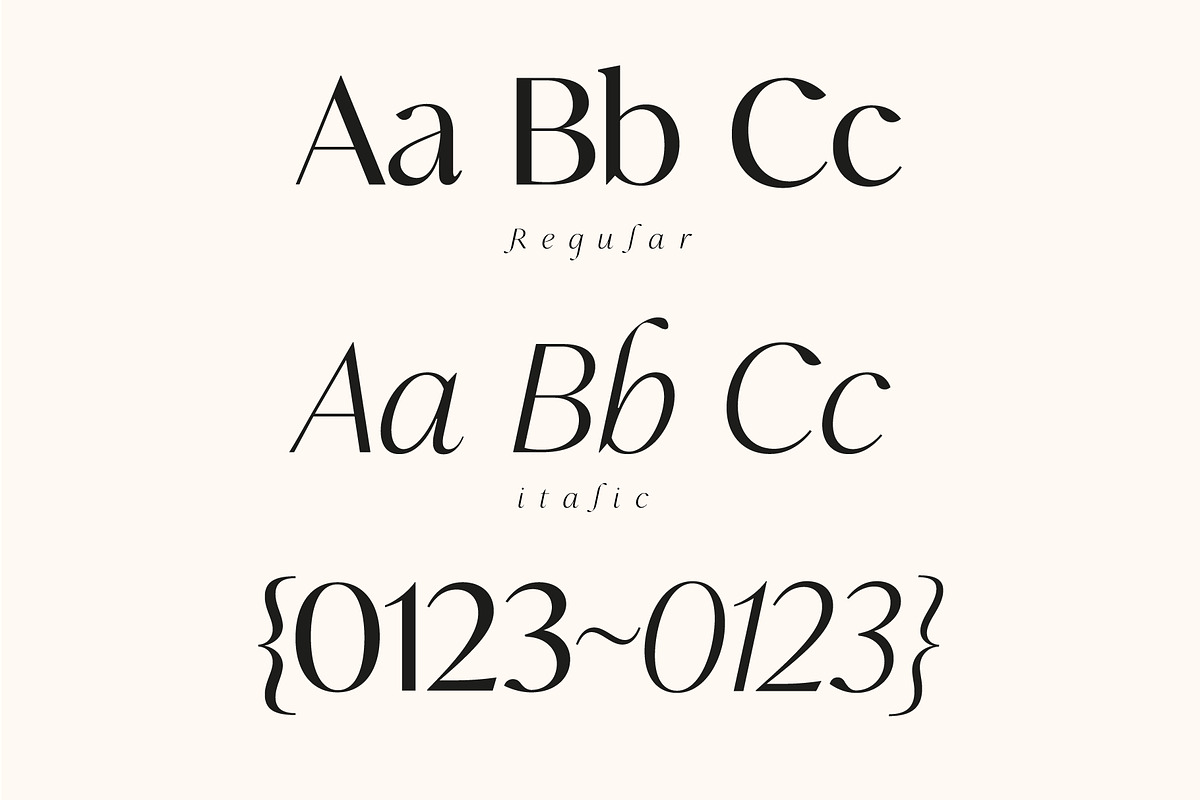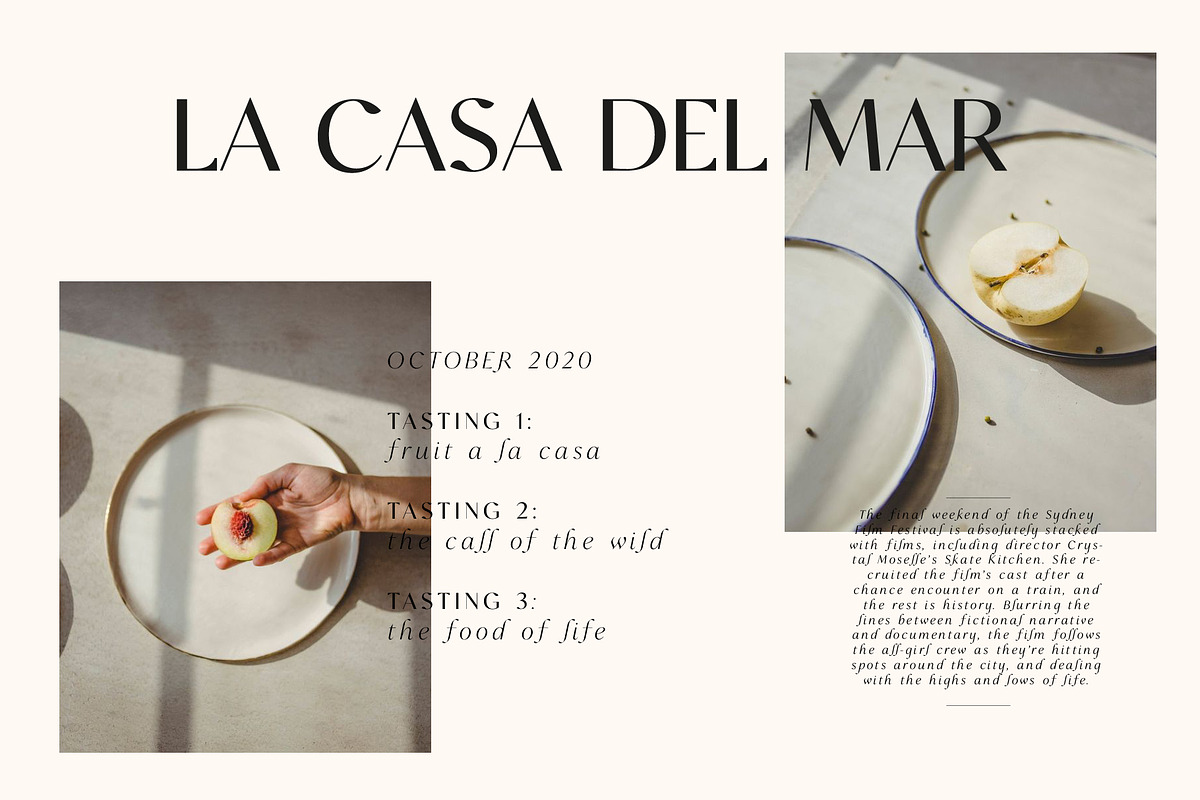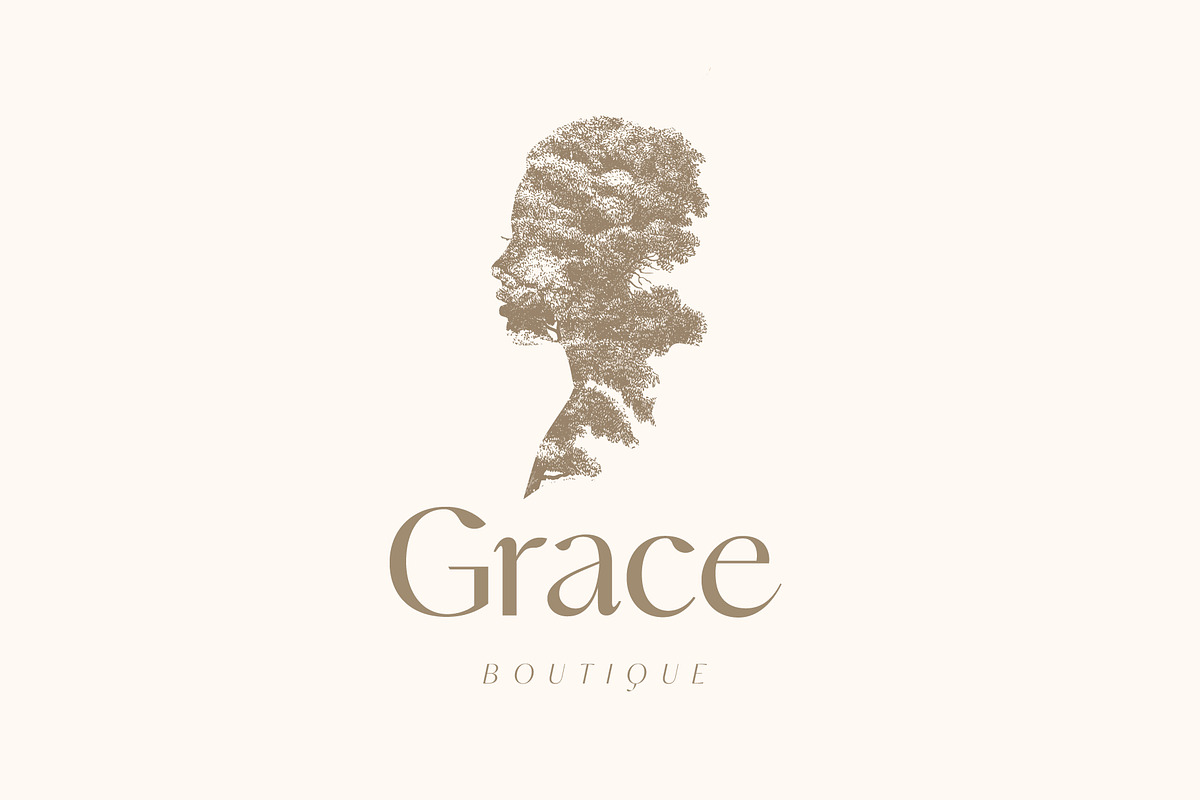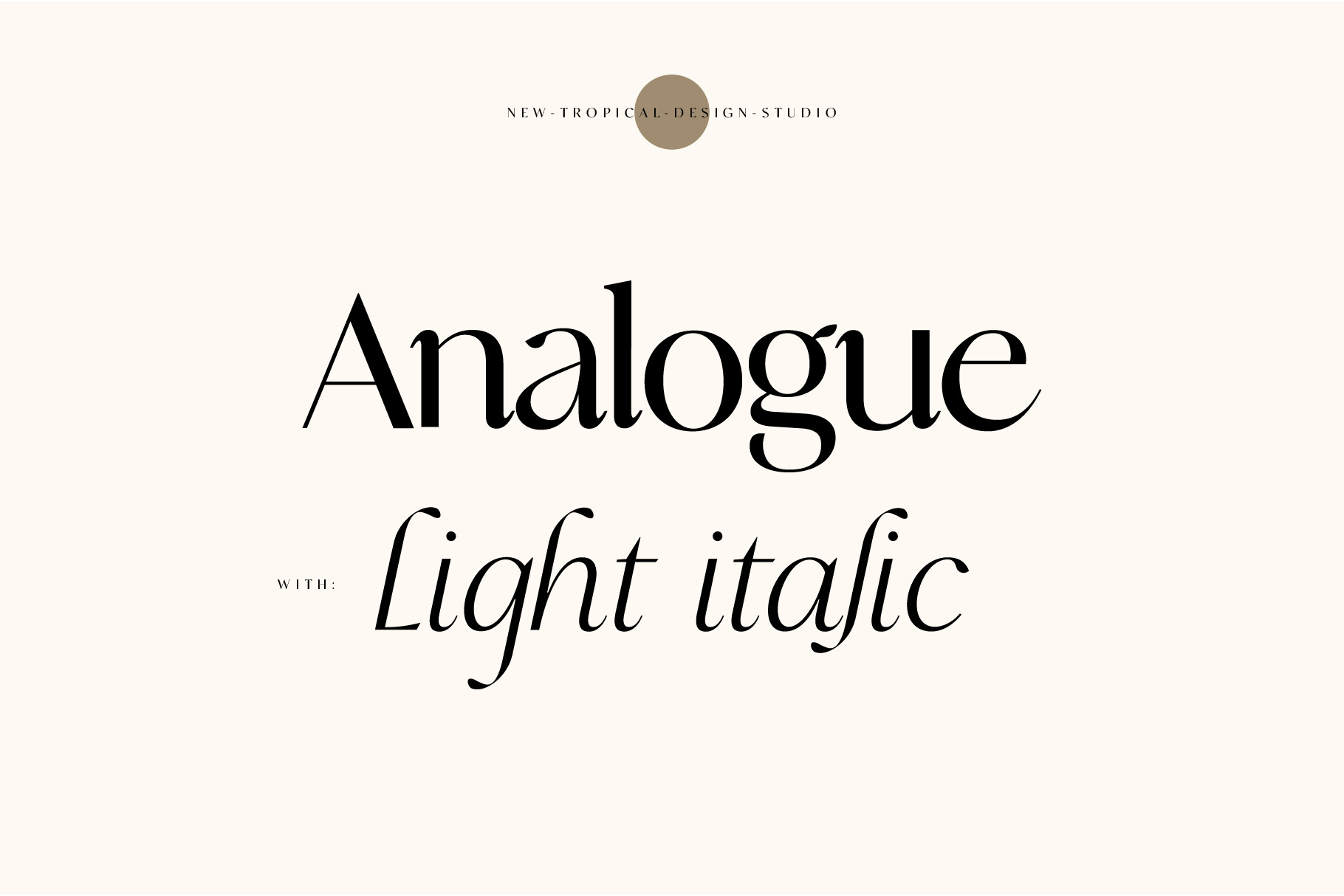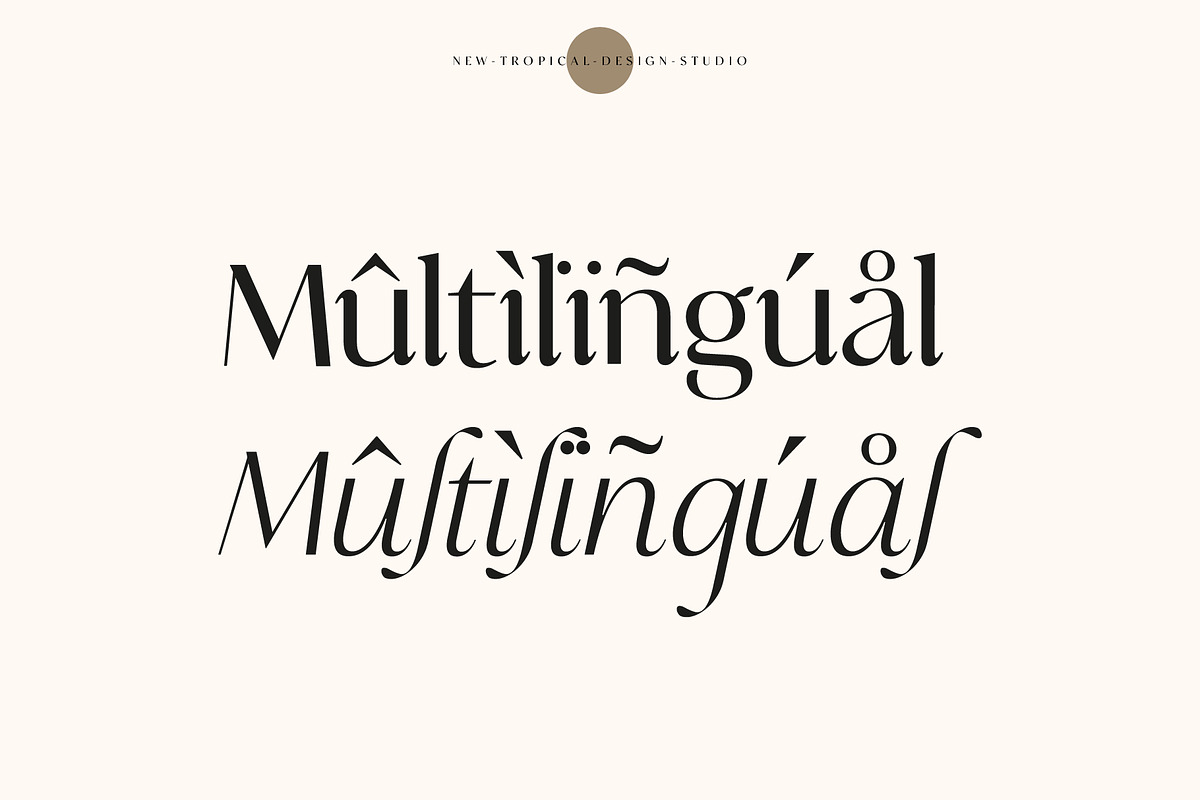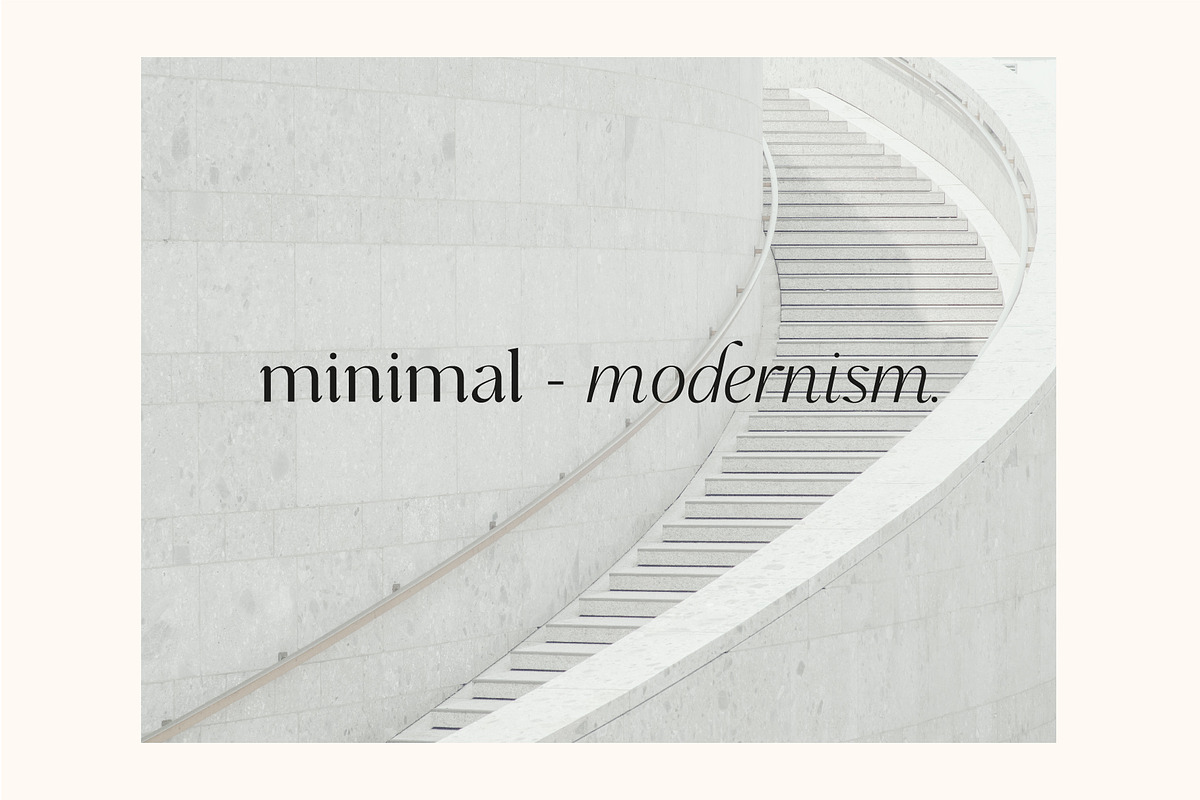
Analogue - Stylish Modern font
Analogue is all class. A stylish modern font that is a mix of serif and sans serif. It's soft curves mixed with high contrast glyphs lend it self to both feminine and masculine qualities. With a contrasting light italic, Analogue works great in layout design for quotes or body copy. The Elegant curves also make for a unique logo or masthead. Analogue comes with multilingual support also.
- Full upper/lower case, numbers, punctuation and multilingual support.
- Full italic style included also.